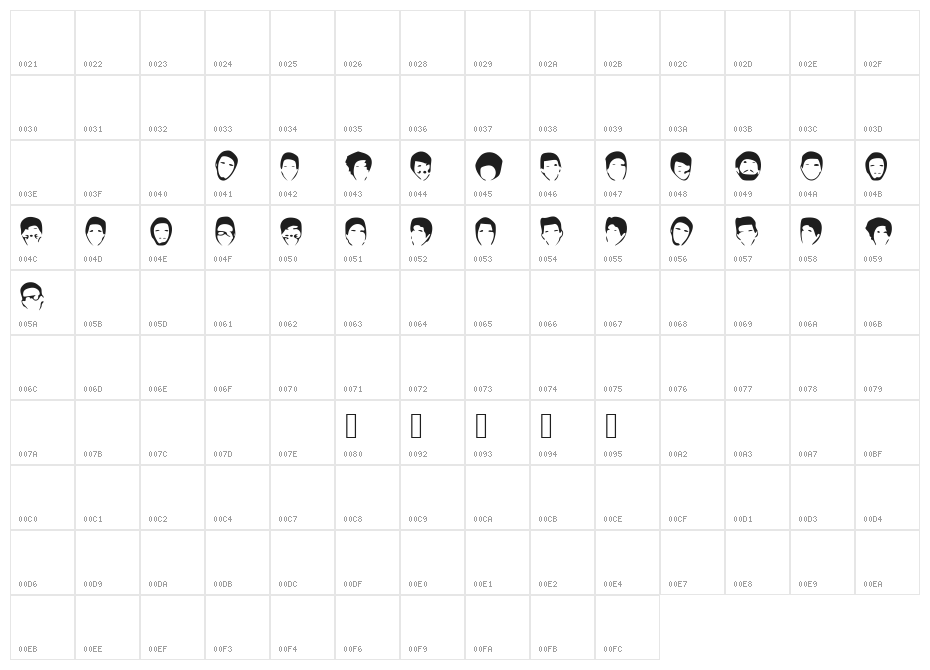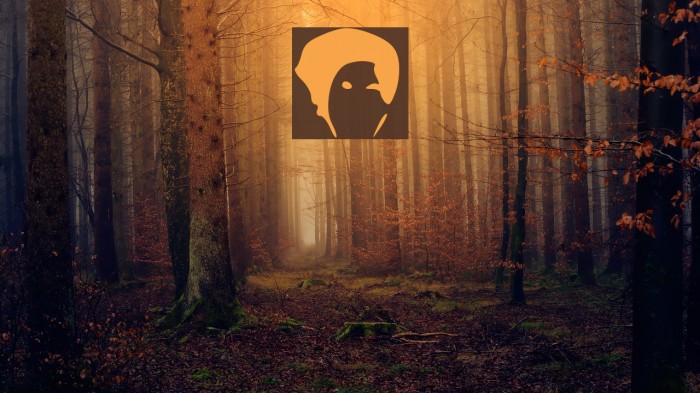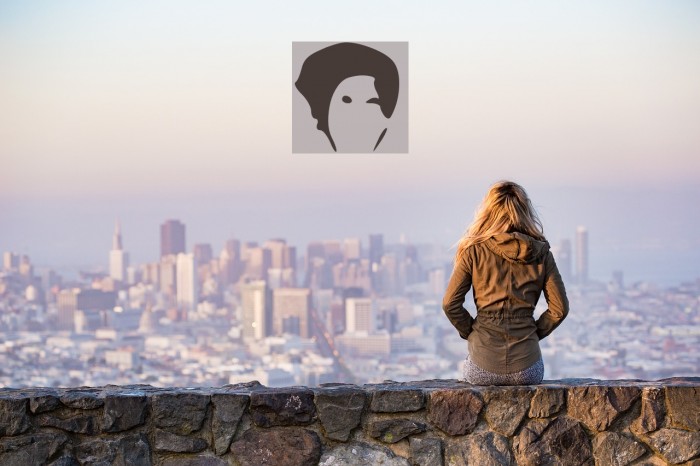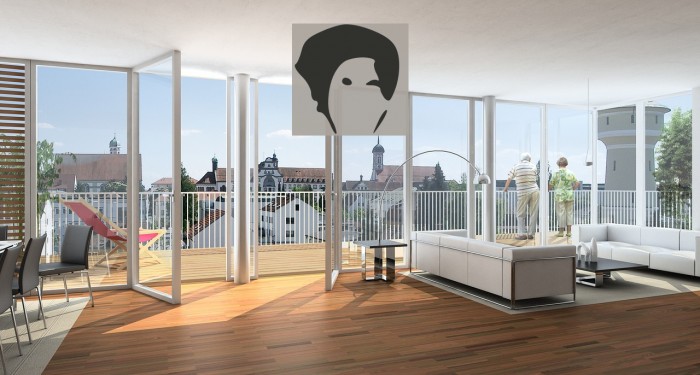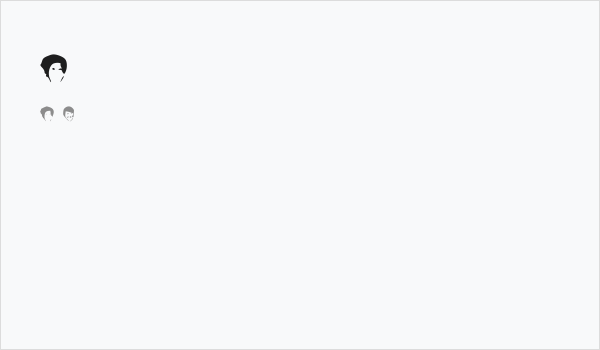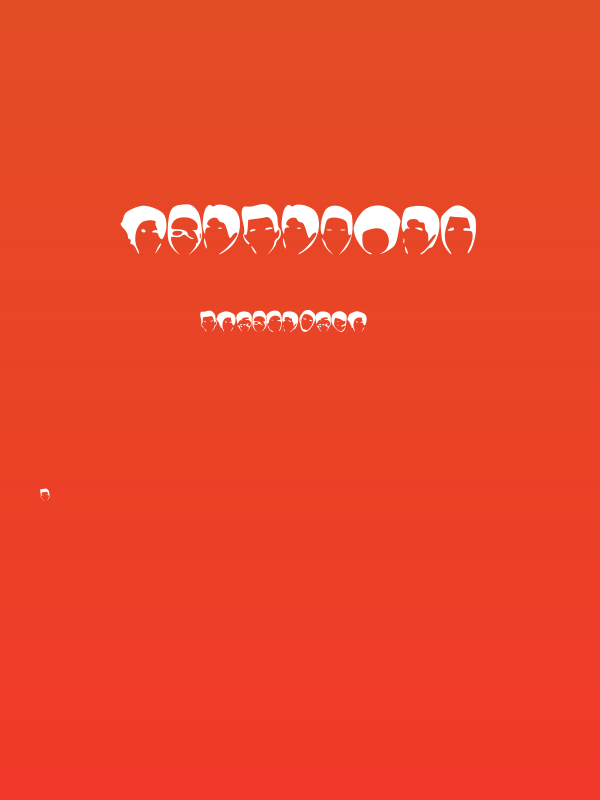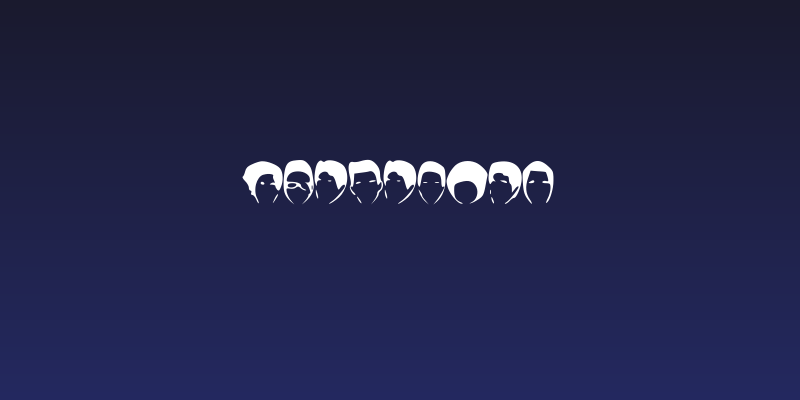
Youtubers Font
Youtubers Description
A decorative font where each character is represented by a stylized, minimalist illustration of a person's head and face, using bold black shapes for hair and facial features, with no text or traditional letterforms visible.
| Overall Style | Decorative, Modern, Playful |
| Use Case | Logos, Headlines, Posters, Social Media |
| Proposed Projects | Posters, creative branding, event invitations, social media graphics, novelty merchandise. |